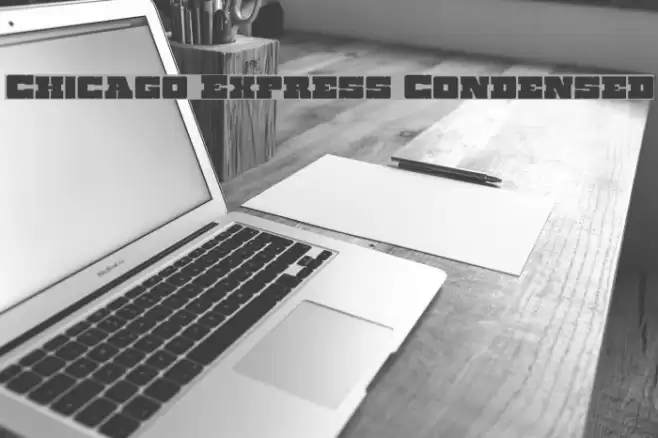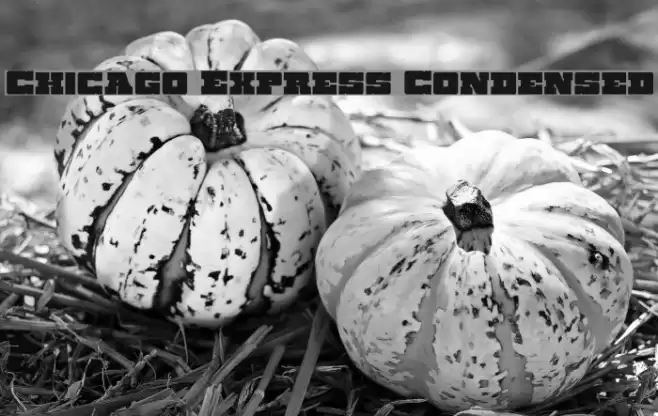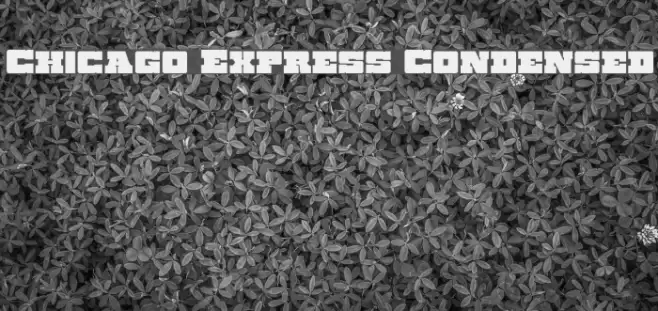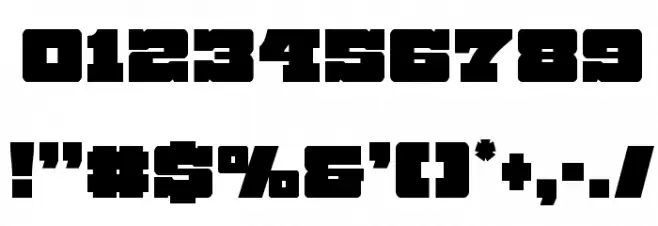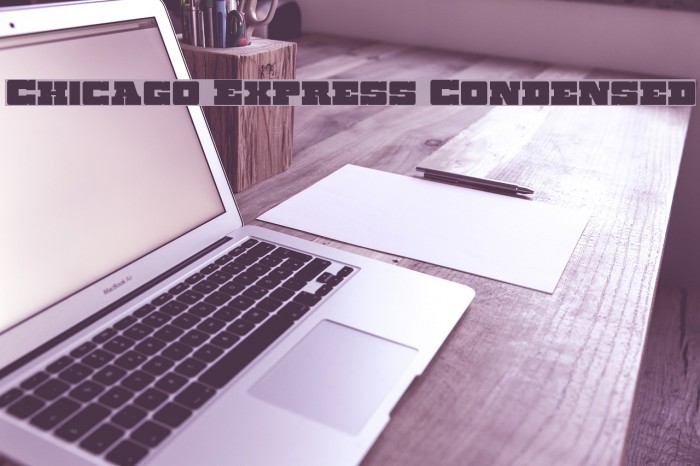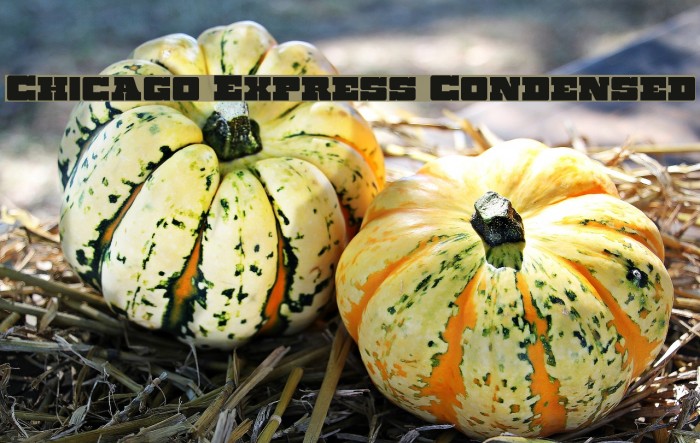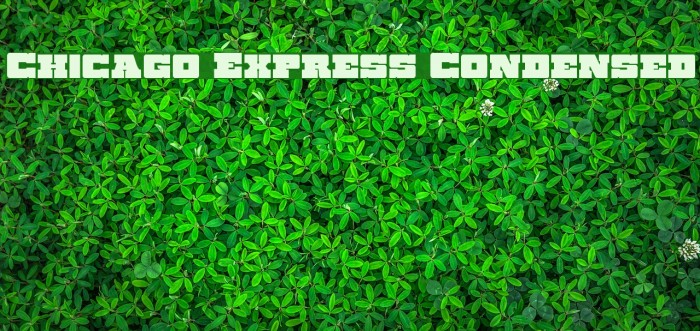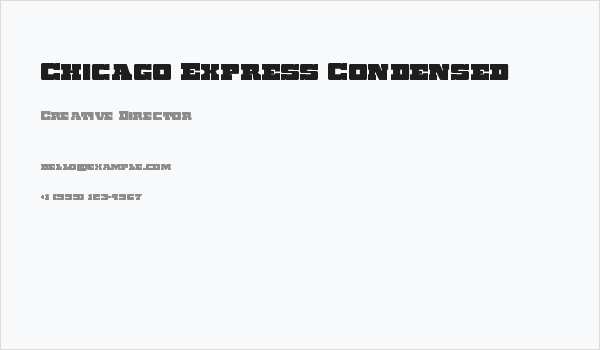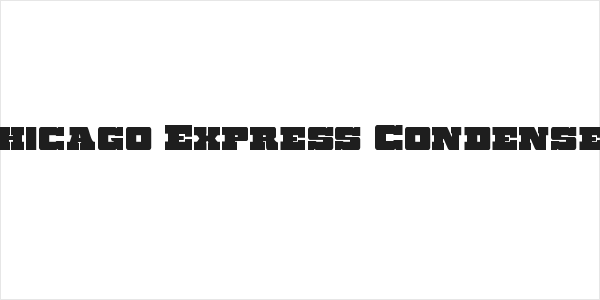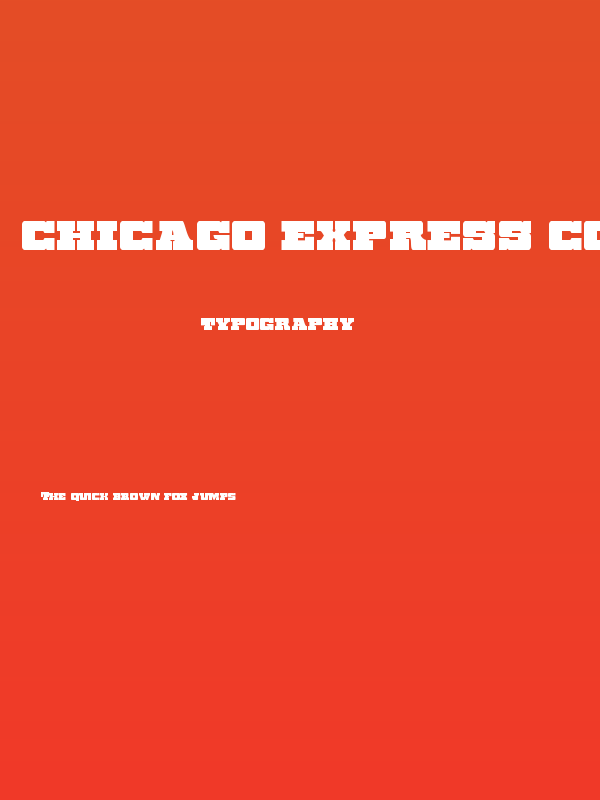
Chicago Express Condensed Font
Chicago Express Condensed Description
This font is a bold and impactful typeface characterized by its condensed and blocky letterforms. The uppercase letters are uniform in height, with strong horizontal and vertical lines that create a sense of solidity and strength. The numbers and special characters maintain the same boldness, ensuring consistency across all glyphs. The font's design is reminiscent of vintage sports or collegiate themes, making it ideal for projects that require a commanding presence. Its condensed nature allows for efficient use of space while maintaining readability.
A bold, condensed typeface with a vintage, collegiate style from Uncategorized fonts.
- Proposed Projects: Ideal for sports branding, posters, headlines, and any project requiring a strong, vintage aesthetic.
- Character Spacing: Tight
- Overall Style: Vintage